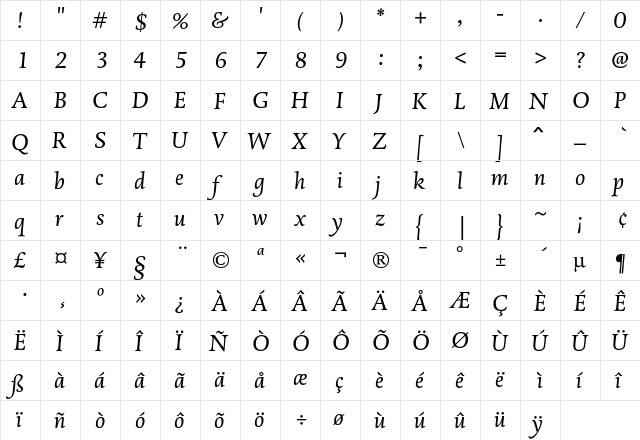
DTLDorianT Italic
Design Context for DTLDorianT Typeface
DTLDorianT offers clean, dependable letterforms without strong stylistic allegiance, making it a practical choice for designers who need flexibility. The slanted form adds forward momentum and visual energy.
Pro Tip: Use DTLDorianT for emphasis, pull quotes, and subheadings where its slanted energy can add rhythm to the layout.